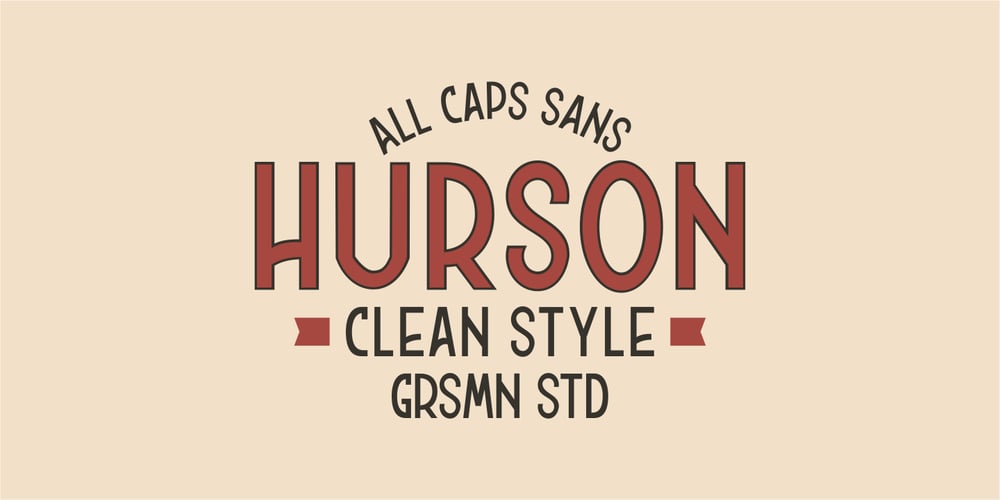
Hurson Clean
Hurson Clean font
Hurson Clean Font Family was designed by Risman Ginarwan and published by Garisman Studio. Hurson Clean contains 1 styles and family package options. Hurson consists of two font styles, Hurson Rough (previous version) and Hurson Clean (latest version) This font gives a feel of vintage, classic, old, handmade looked like. Already PUA Encoded and I think this font is perfect for people looking for vintage aesthetic or handdrawn logo. Suitable for any graphic designs such as branding materials, t-shirt, print, business cards, logo, poster, t-shirt, photography, quotes .etc. What the Advantages? – Simple installation – Support for MAC and PC – Opentype feature (support untuk Adobe Illustrator, Photoshop, Indesign, Corel Draw X6-X8, and other software support opentype) – Support for 22 Language: Afrikaans, Albanian, Catalan, Croatian, Czech, Danish, Dutch, English, Estonian, Finnish, French, Hungarian, Icelandic, Italian, Norwegian, Polish, Portuguese, Slovak, Slovenian, Spanish, Swedish and Zulu.